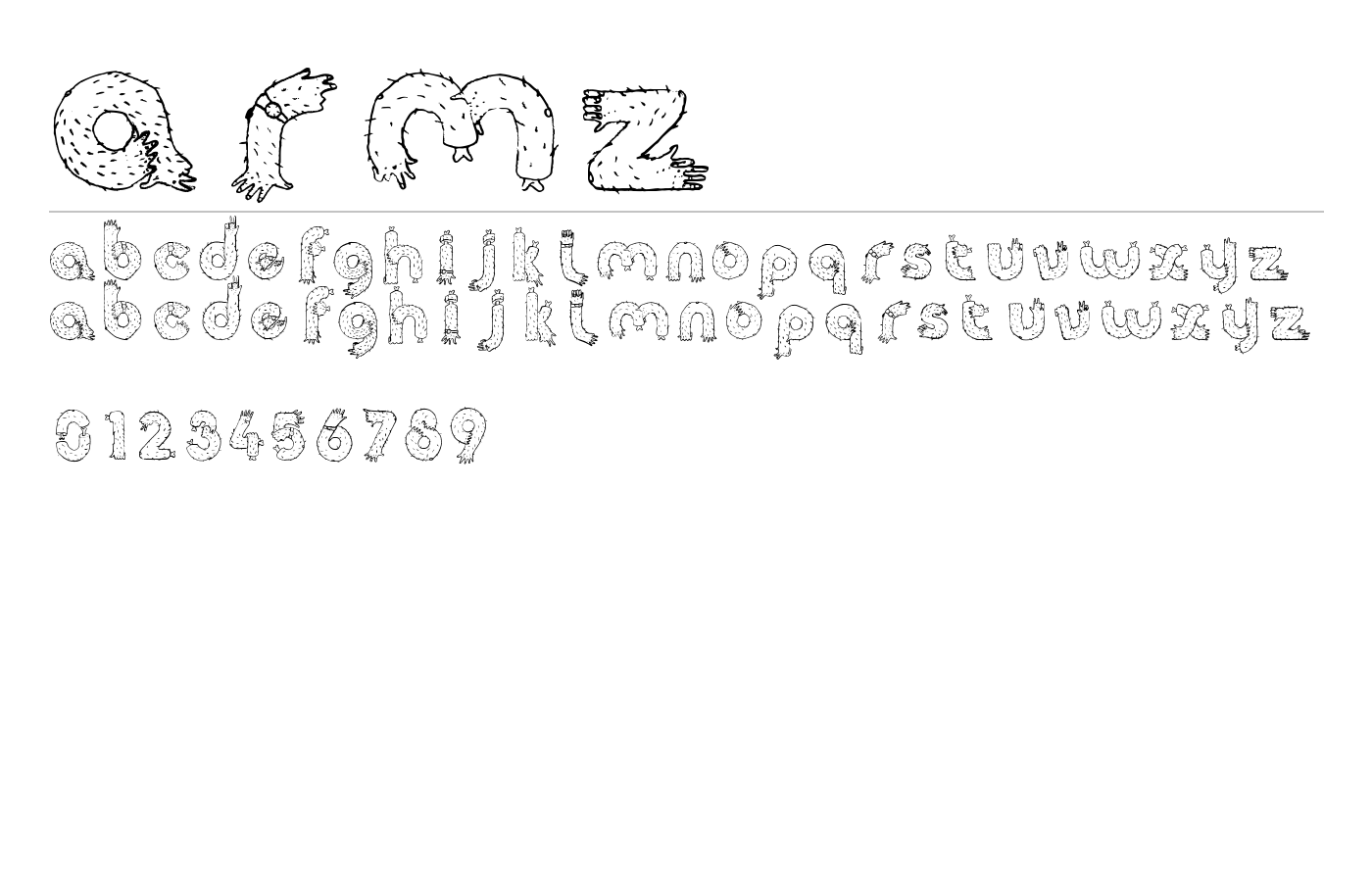
Armz Font is a playful, decorative typeface featuring quirky, hand-drawn letterforms that resemble fuzzy, organic shapes with tiny arm-like details. Its irregular, whimsical style works best for creative projects, children’s books, or quirky branding where a fun, informal vibe is desired. This font’s unique personality shines in display use, adding character and charm to headlines, posters, and logos.
Armz Font